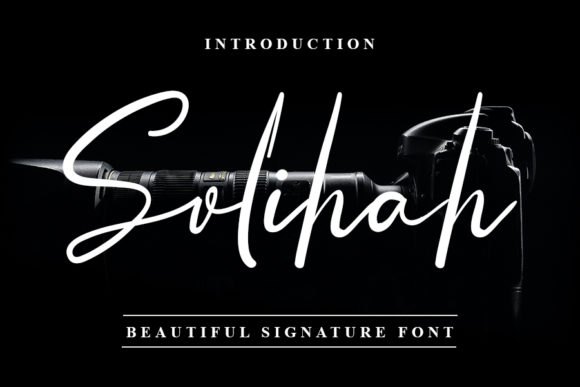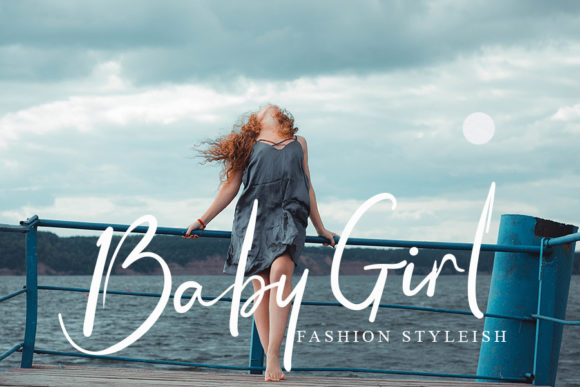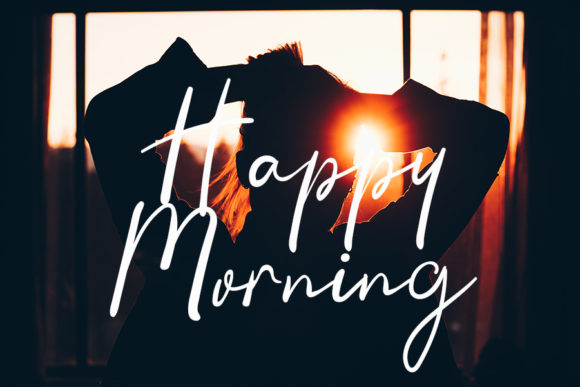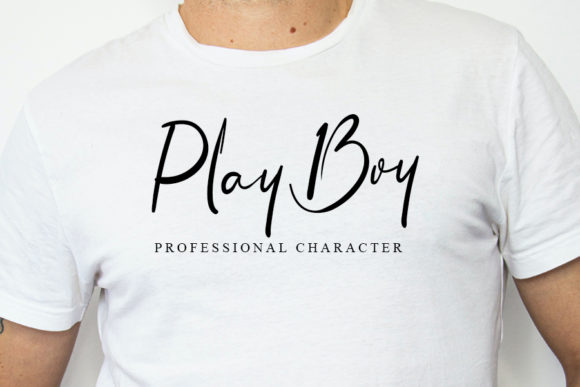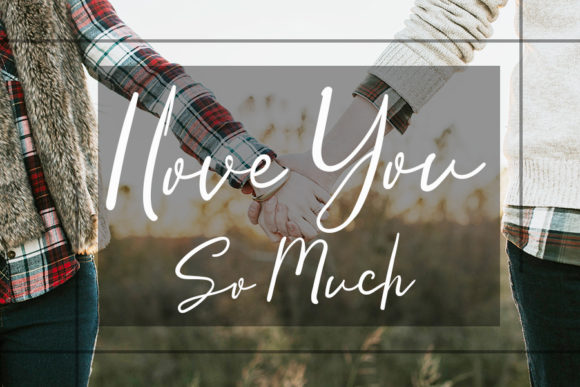
Solihah Font
About Solihah Font
Solihah is a sweet and cursive handwritten font. This gentle font will look gorgeous on a variety of design ideas. It will add a timeless and romantic touch to each of your projects!